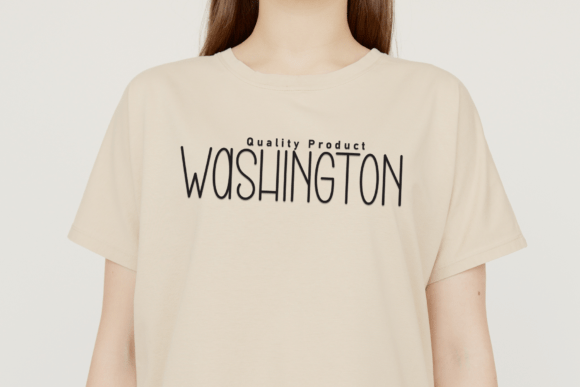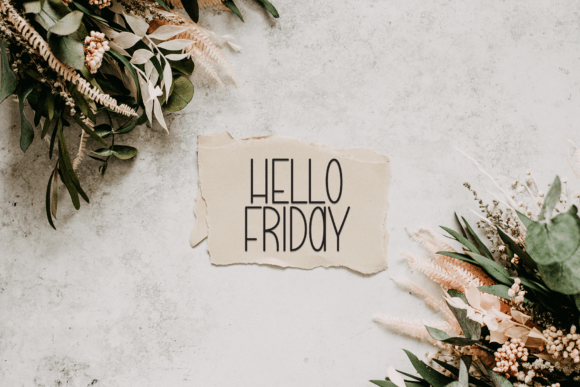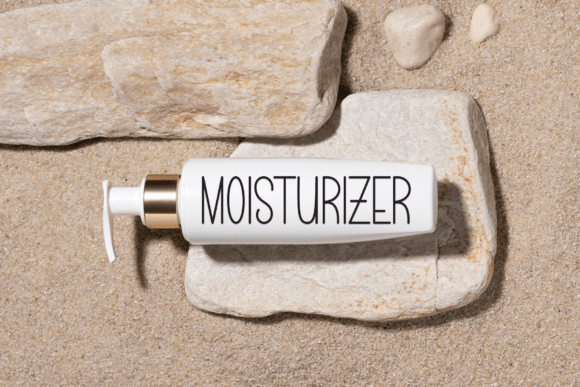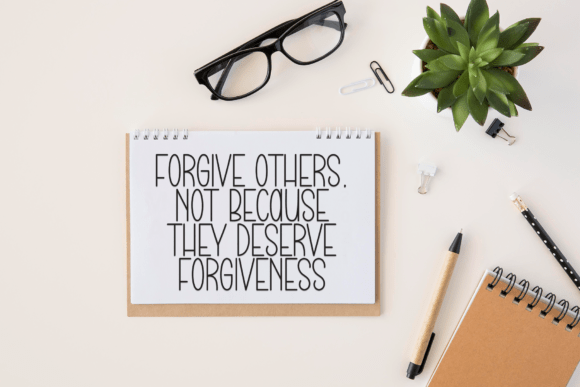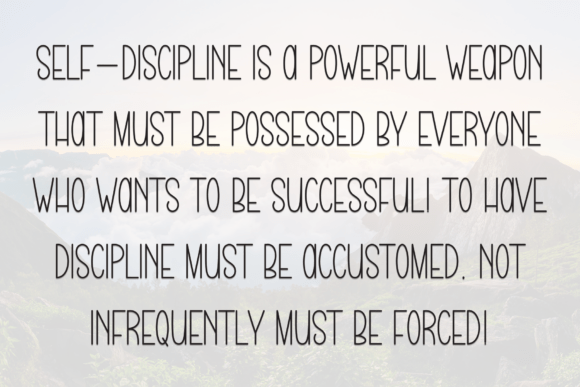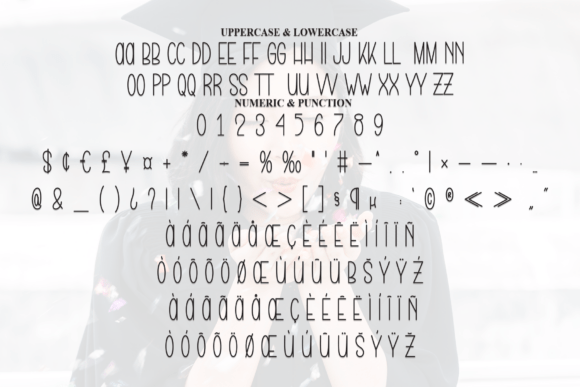
Dreaming Graduate Font: Elevate Your Designs with a Touch of Warmth and Clarity
In the world of typography, fonts play a crucial role in conveying messages, evoking emotions, and creating lasting impressions. For designers and crafters seeking a font that embodies warmth, clarity, and approachability, the Dreaming Graduate font is an excellent choice. This casual and neat display font is meticulously designed to bring a sense of balance and charm to various projects, making it an ideal selection for branding, headlines, and everyday designs.
The Essence of Dreaming Graduate Font
Dreaming Graduate is more than just a font; it’s a design element that can elevate your projects with its clean structure and inviting style. The font’s balanced letterforms are crafted to offer exceptional readability and charm, ensuring that every message feels genuine and engaging. Whether you’re working on a branding campaign, creating headlines, or designing everyday materials, this font provides the perfect blend of aesthetics and functionality.
Key Features of Dreaming Graduate Font
- Clean Structure: The font boasts a clean and organized structure, making it easy to read and understand. This feature is particularly beneficial for designs that require clarity and precision.
- Approachable Style: Dreaming Graduate has an approachable and friendly style that instantly connects with the audience. This makes it perfect for designs that aim to establish a personal touch.
- Balanced Letterforms: The font’s balanced letterforms are designed to provide optimal readability and visual appeal. This balance ensures that the text is easy to read and enjoyable to look at.
- Versatility: Dreaming Graduate is versatile and can be used in various design projects, including branding, headlines, posters, and more.
Applications of Dreaming Graduate Font
The Dreaming Graduate font is suitable for a wide range of applications, including:
- Branding: Use the font to create memorable and impactful brand identities that resonate with your audience.
- Headlines: Add a touch of elegance and sophistication to your headlines with this versatile font.
- Posters and Flyers: Create eye-catching posters and flyers that grab attention and convey your message effectively.
- Digital Media: Use the font in digital media, such as social media graphics, website headers, and more.
Why Choose Dreaming Graduate Font?
With numerous fonts available, why should you choose Dreaming Graduate? Here are a few compelling reasons:
- Unique Style: The font’s unique blend of cleanliness and approachability sets it apart from other fonts.
- Readability: The balanced letterforms ensure exceptional readability, making it perfect for designs that require clear communication.
- Versatility: The font’s versatility allows you to use it in various design projects, making it a valuable addition to your font library.
In conclusion, the Dreaming Graduate font is an excellent choice for designers and crafters seeking a casual and neat display font that brings warmth and clarity to their projects. With its clean structure, approachable style, and balanced letterforms, this font is perfect for branding, headlines, and everyday designs. Whether you’re looking to create a lasting impression or simply want to add a touch of elegance to your designs, the Dreaming Graduate font is an excellent selection.